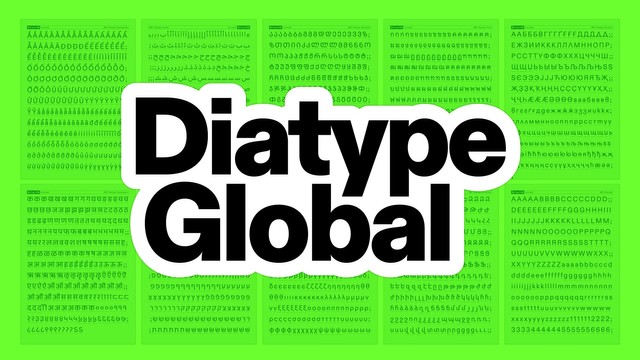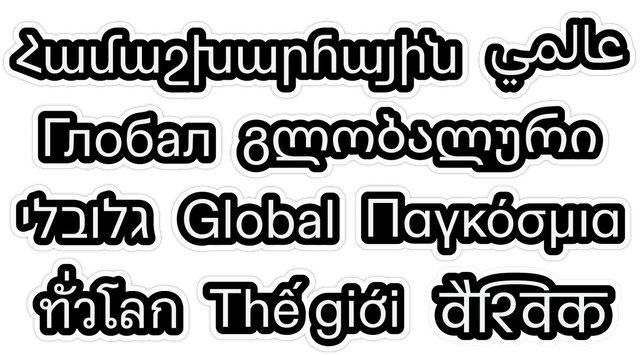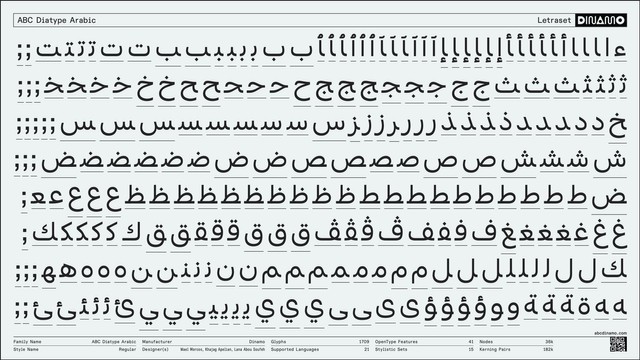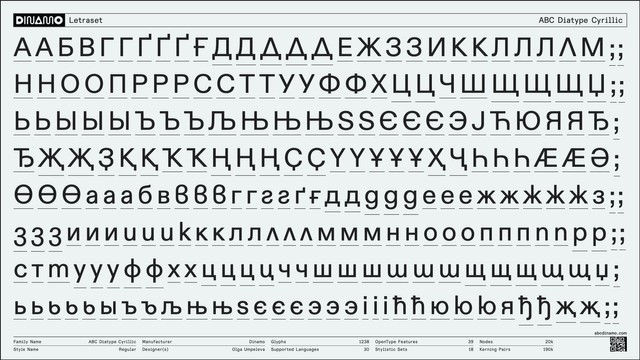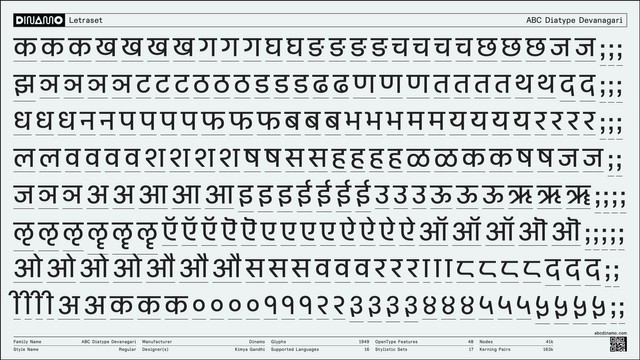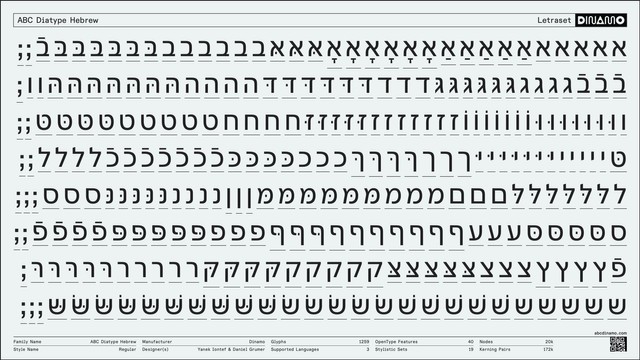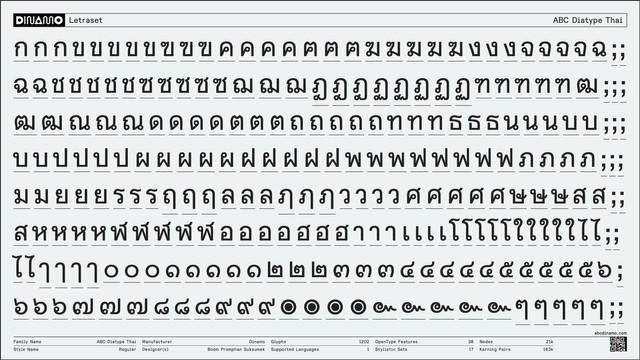
That’s Arabic, Armenian, Cyrillic, Devanagari, Georgian, Greek, Hebrew, Thai, and Latin (with Vietnamese) —
Diatype—the iconic Dinamo font—now covers nine writing systems: Arabic, Armenian, Cyrillic, Devanagari, Georgian, Greek, Hebrew, Thai, and Latin (with Vietnamese).
We’re very proud of this vast update and transforming Diatype into a cohesive, global type family united by the same sharp yet warm flavor. All nine writing systems are now available as expansive variable fonts spanning Thin to Ultra weights, plus there’s a slant axis whenever it makes sense for the writing system.
This was a beautiful, global collaboration with 12 designers spread over six time zones, led by our own Ethan Cohen.
Expanding a Grotesk font like Diatype is its own particular challenge because the concept of a Grotesk doesn’t exist for most writing systems.
And while the results of a direct visual translation might match visually, the cultural connotations of that visual treatment might not. This makes the small moments that make Diatype “Diatype” tricky to translate—and each of our collaborators came to the task in very different, unique ways.
Some of our collaborators had a research-led approach. Diatype is based on a phototypesetting typeface from the 1960s, so the Greek and Hebrew typefaces drew from the same era and technology. Similarly, Diatype Thai emerged from reference materials like Thai Letraset.
Diatype Cyrillic, Georgian, Armenian, and Devanagari, however, developed organically, drawing first from Latin design DNA. All these writing systems have their own histories and visual cultures, so design decisions often have different connotations even if they are aesthetically similar across systems. This required a lot of experimentation and testing of subtle changes. Lastly, Diatype Arabic was drawn entirely from scratch to stay true to the Arabic script, making clever visual references to the Latin counterpart.
Below each of our collaborators gives us a little insight into their specific approach...
Diatype Arabic: “The key to our extension was to draw the Arabic in a way that aligns with the inherent softness and fluidity of Arabic calligraphy. For example, the letter meem and all the loop based letters feature a seamless round shape that mirrors the softness present in the Latin. The ligatures, too, embody a rhythm that is both structured and fluid, maintaining a delicate balance between straight lines and smooth transitions. This synthesis allowed us to retain the warmth and approachability of Diatype while honoring the rich traditions of Arabic calligraphy.” — Wael Morcos, Khajag Apelian, and Lana Abou Soufeh
Diatype Cyrillic: “I feel that although Diatype is not very loud, it still has quite a unique voice. When designing Diatype Cyrillic, the most challenging thing was to retain the same balance between simple (even brutal) shapes and warm ones. For instance, I retained the same stiff Latin construction for к (and, based on it, the ж) and then drew on the playful y and j for б, л, and ђ.”— Olga Umpeleva
Diatype Thai Loop and Loopless: “Balancing Thai and Latin textures, particularly in the Ultra weight of Diatype, is challenging in both Thai Loop and Loopless, due to the complexity of the Thai counter shapes. The Thai Loop mimics the o counter shape, thus creating a unique and harmonious connection with its Latin counterpart. Both Thai Loop and Loopless feature their own Schoolbook stylistic set, unique to Diatype. The set adds additional details to both Loop and Loopless styles, which enriches the personality of the design.” — Boom Promphan Suksumek
Diatype Devanagari: “The concept of a Grotesk style doesn’t traditionally exist for the Devanagari script, although it has seen explorations of geometric forms dating back to manuscript eras. The main challenge of translating Diatype's characters into Devanagari was to ensure that the characters didn’t appear cold or unnatural to native readers.”— Kimya Gandhi
Diatype Vietnamese: “Vietnamese orthography is quite different from other Latin orthographies, with both single and double-stacked diacritics for tones. 10% was spent designing the diacritics, and 90% was used for adjusting their positioning, ensuring consistency across all masters, and customizing them for specific combinations, like the tilde on regular and condensed width letters or when combined with other diacritics like the breve or circumflex.” — Đức Cao
Diatype Georgian: “The top priority was determining the character proportions to ensure a harmonious reading experience in a multiscript setting. This led to a lower x-height and slightly thicker strokes, which balanced the ample white space of the rounded counters while preserving the legibility and distinct characteristics of the Georgian script.”—Ana Sanikidze
Diatype Hebrew: “Our way to culturally-translate the ideas of Diatype revolved around mixing old and new technologies. As a starting point, we took an average-quality print from the days of phototypesetting, of an equivalent style (Narkiss Tam). Using interpolations we adjusted the weights to match the design space of Diatype.”—Yanek Iontef & Daniel Grumer
Every single writing system includes Diatype Latin and Core within its file, so whenever something needed to be fixed in Latin, it needed to be fixed in every individual source file. It got kind of out of control.